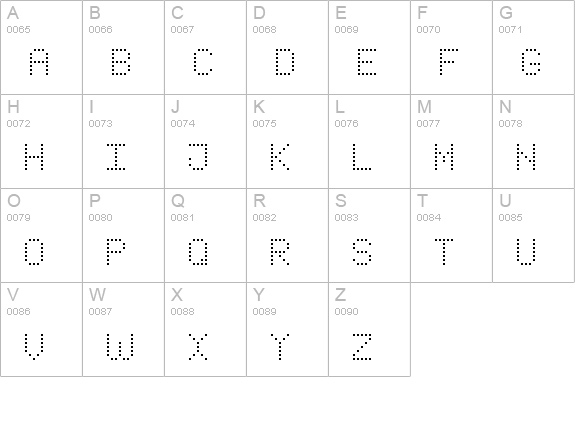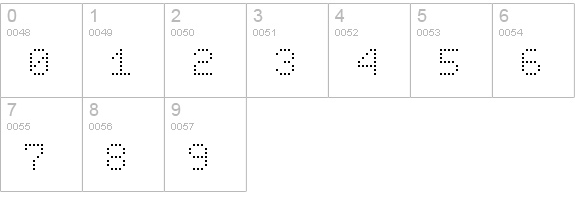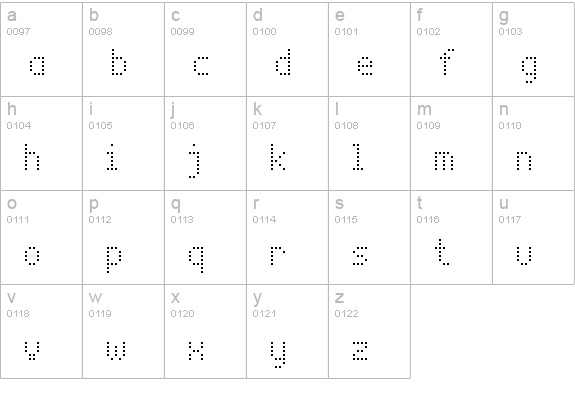
Enhanced Dot Digital-7 Font Details
Enhanced Dot Digital-7 font is a visually striking and versatile typeface that is sure to captivate any audience. Its unique design features a perfect blend of sharp edges and rounded corners, creating a modern and futuristic feel. This font is perfect for projects that require a bold and futuristic look, such as technology-related designs, gaming graphics, or sci-fi themes. Its high legibility ensures that your message will be conveyed with clarity and impact. Enhanced Dot Digital-7 font is freely available to download at FontsMarket.com, making it accessible to designers and enthusiasts alike. Whether you are a professional looking to enhance your designs or an individual looking to add a touch of creativity to personal projects, this font is a must-have. With a wide range of characters, including uppercase, lowercase, numbers, and special symbols, Enhanced Dot Digital-7 font offers endless possibilities for creative expression. Its clean lines and distinct style make it stand out in any application, whether it be print or digital. The versatility of Enhanced Dot Digital-7 font is evident in its ability to seamlessly adapt to various design styles. It can be used for headlines, titles, logos, posters, and more. Its dynamic nature allows it to effortlessly blend with other fonts, adding depth and personality to your overall design. Incorporate Enhanced Dot Digital-7 font into your next project and experience the power it brings. Its free availability at FontsMarket.com allows you to explore its endless potential without any limitations. Download now and embark on a creative journey that will leave a lasting impression.